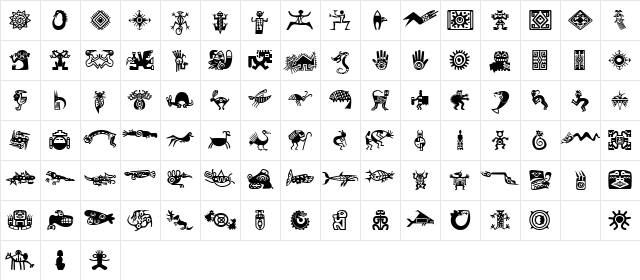
Mini Pics Lil Ancients Free Font
Mini Pics Lil Ancients
Style: Lil Ancients
Design Context for Mini Pics
Mini Pics is a composed and adaptable typeface that performs quietly and consistently across a wide range of design contexts.